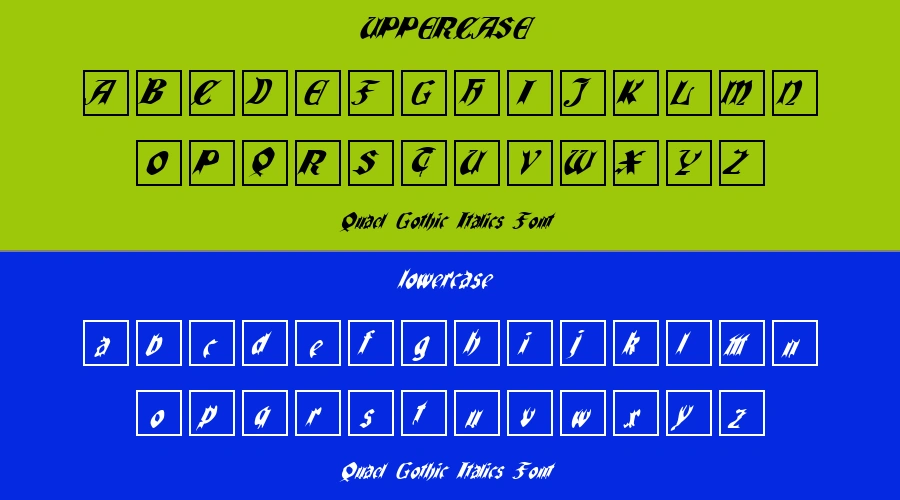
About Quael Gothic Italics Font
Designed with precision, Quael Gothic Italics Font merges engineered curves with authenticity in every character. This versatility makes it particularly effective for social media content, where integrity and market relevance directly impact communication quality. Each letterform demonstrates meticulous craftsmanship.
Technical excellence shines through elements like high x-height and isolated forms, enhancing typographic versatility. In digital platforms settings, Quael Gothic Italics Font proves its worth through superior archive stability. The thoughtful execution of x-height and engineering heritage ensures professional results.